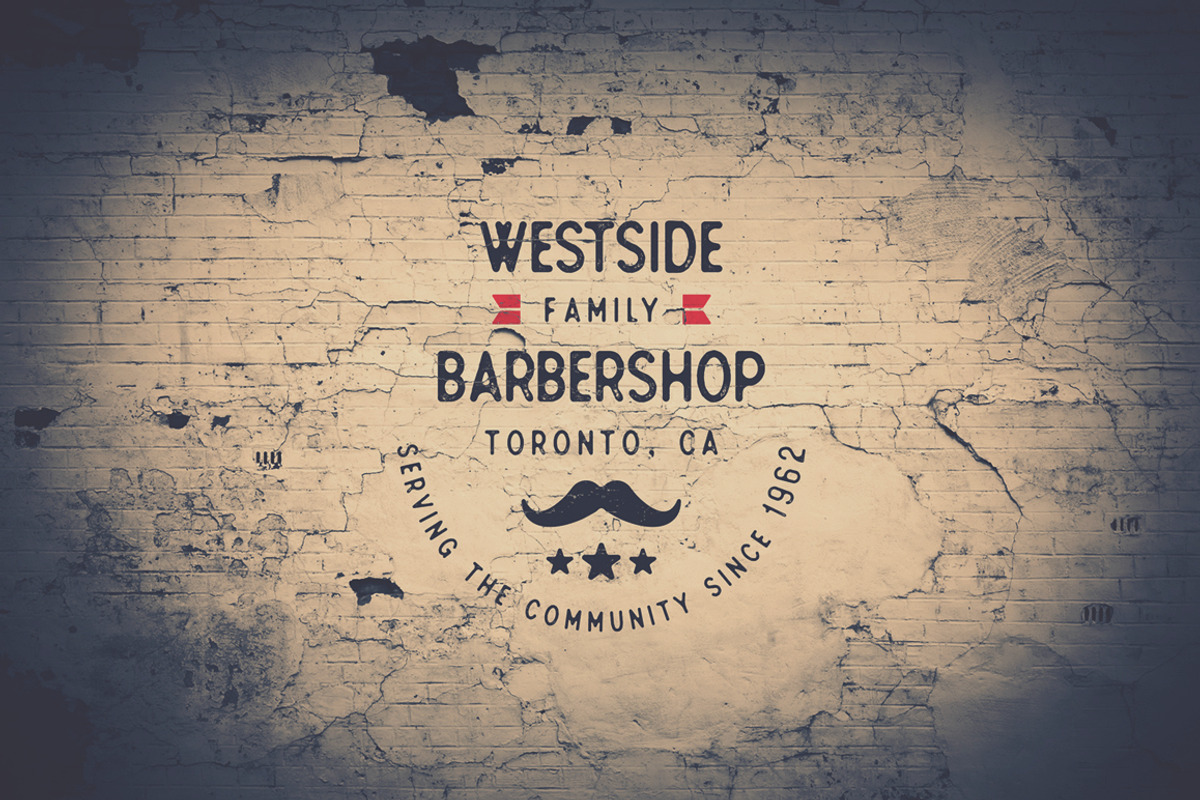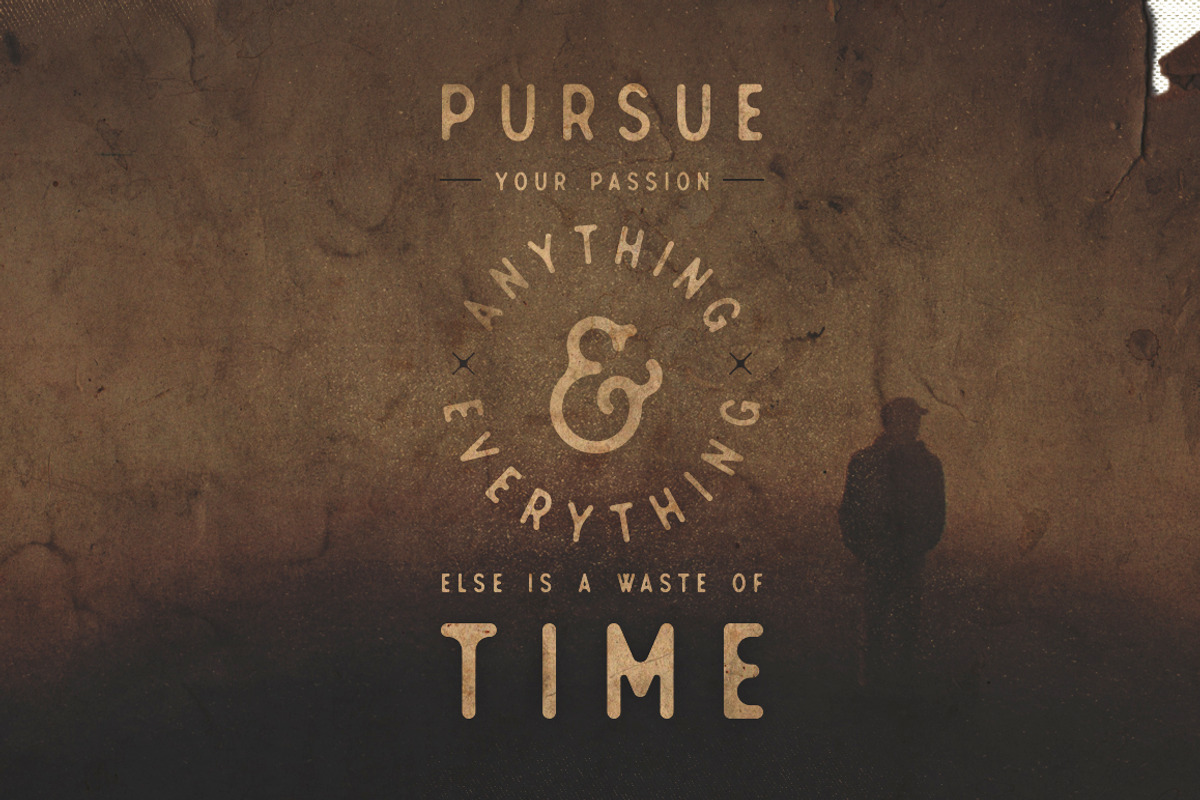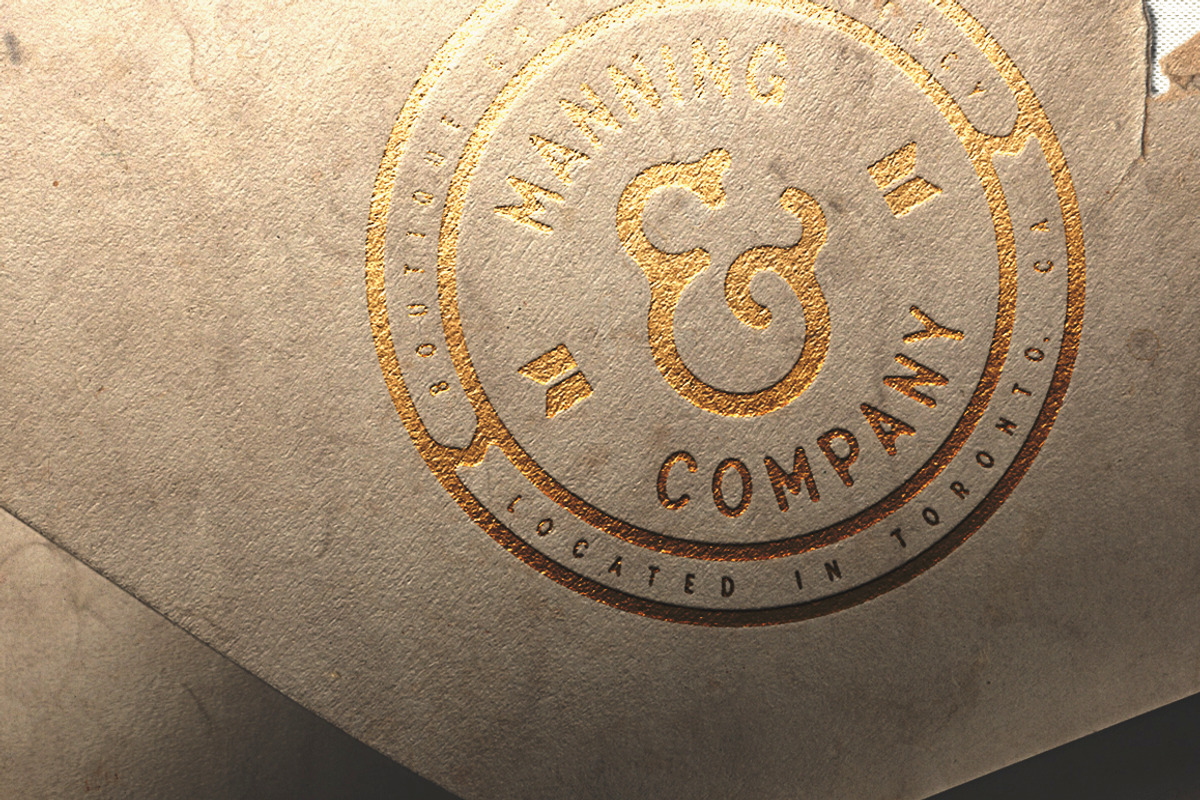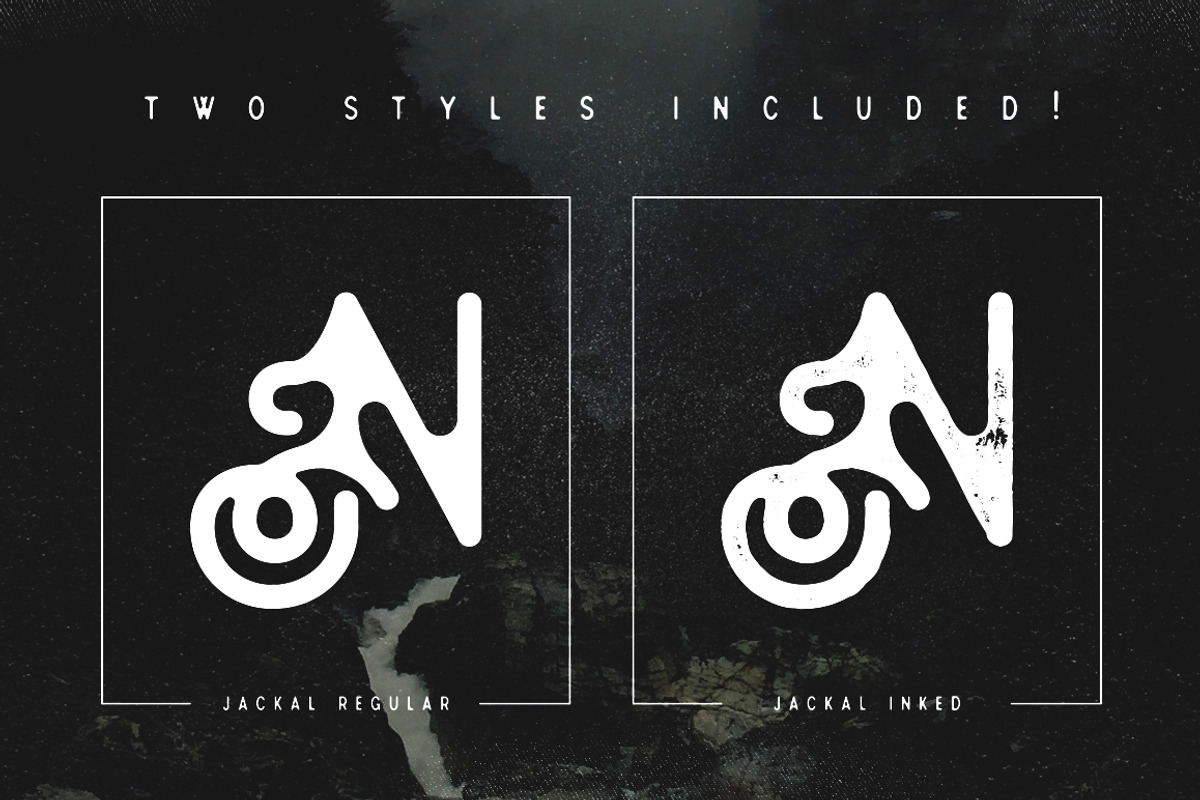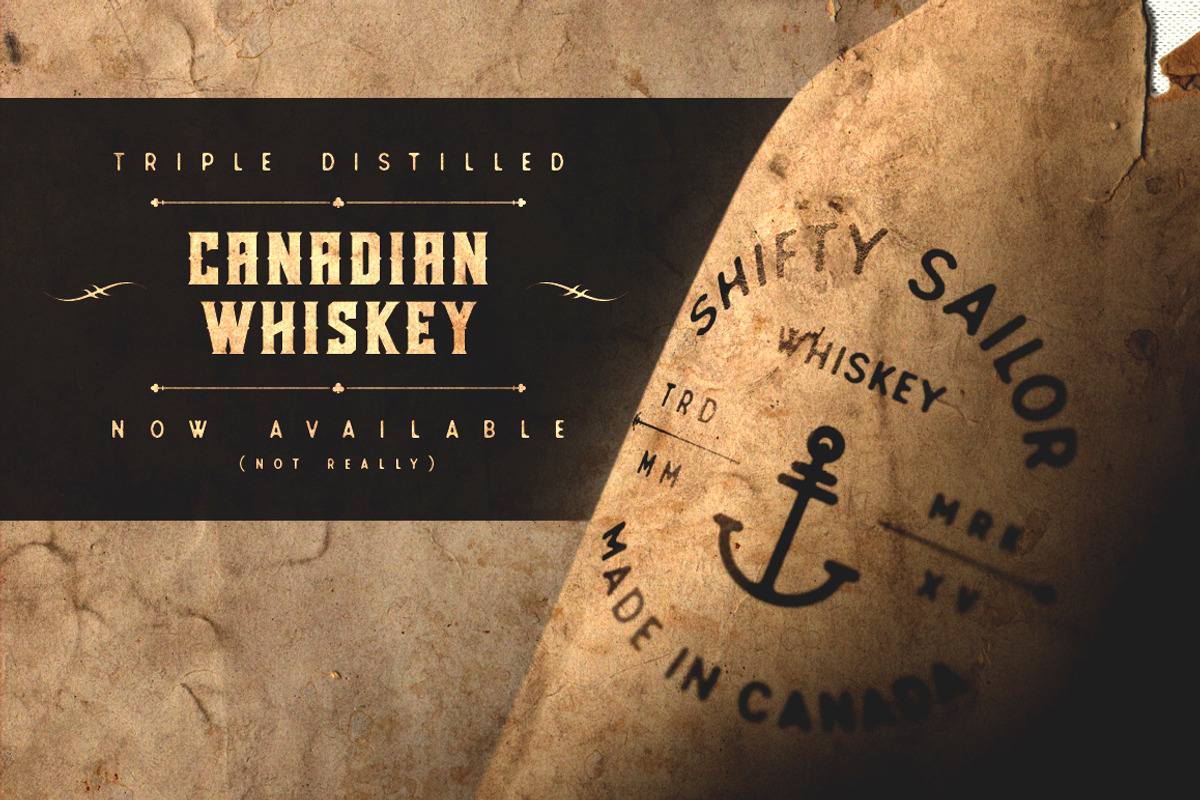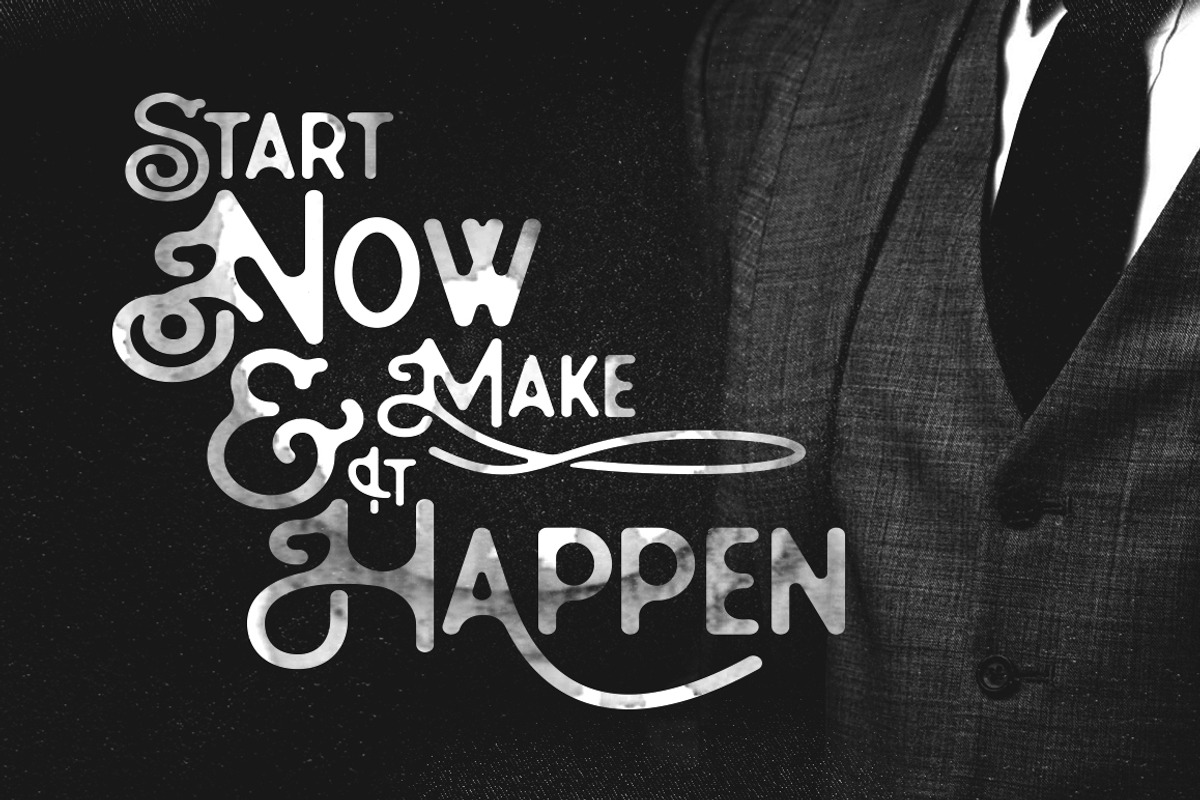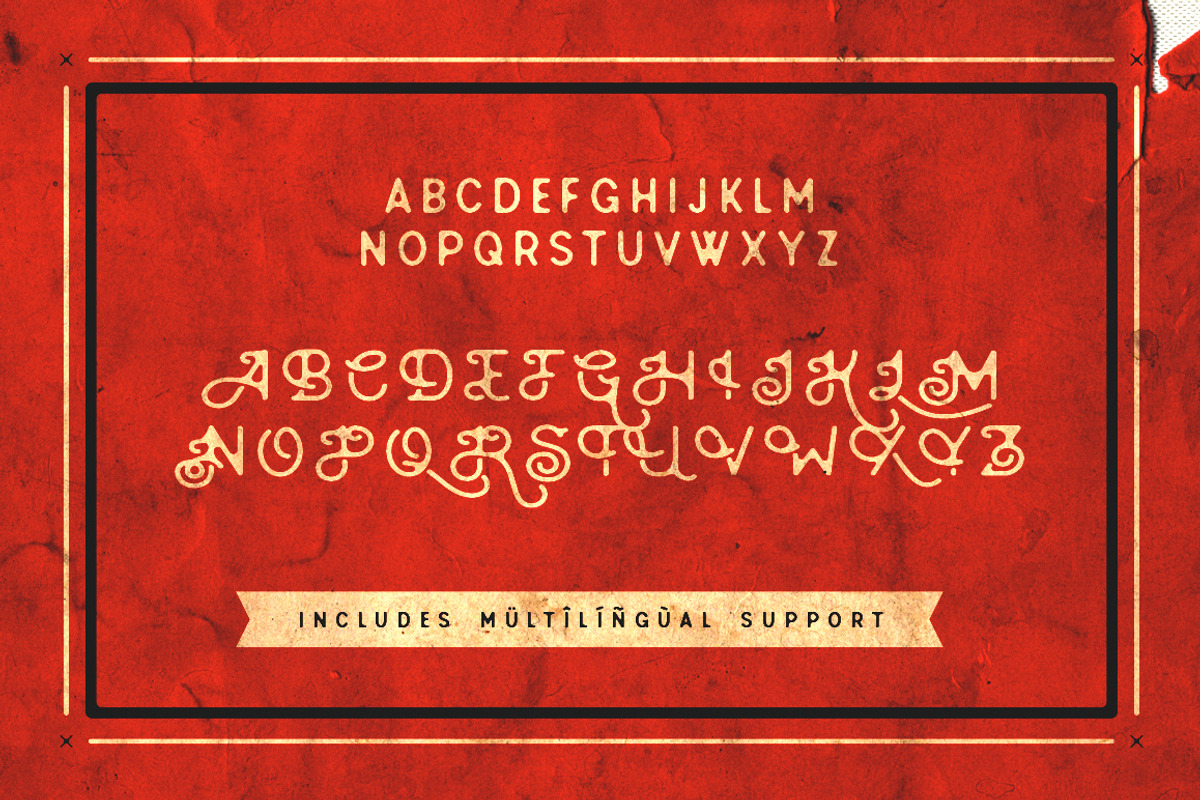
Jackal Display Font
Jackal Display Font by Vintage Type Company is a font selected for branding, posters, packaging, typography.
- Jackal display font comes included with a full upper & lower case, numerals, punctuation, and two variant font styles (regular & inked).
- Jackal display font is a hand made post-modern sans serif with a “scripty” uppercase.
- It also comes equipped with multilingual support for the following languages: Breton, Catalan, Czech, Danish, Estonian, English, Finnish, Fr
Why Jackal Display Font is worth a look
Jackal Display Font by Vintage Type Company fits naturally into Branding, posters, packaging, typography.